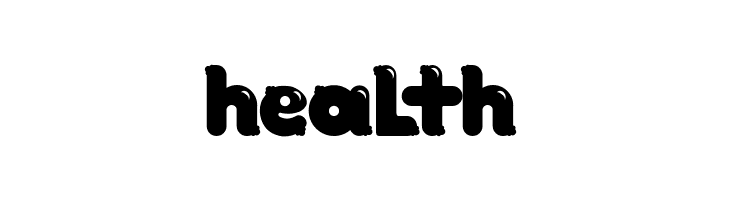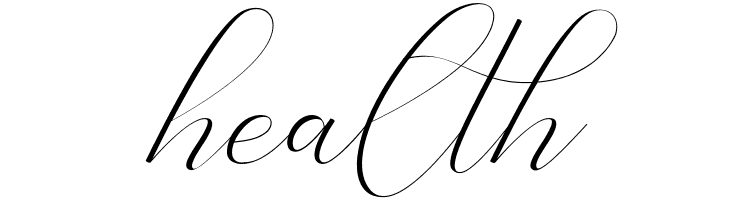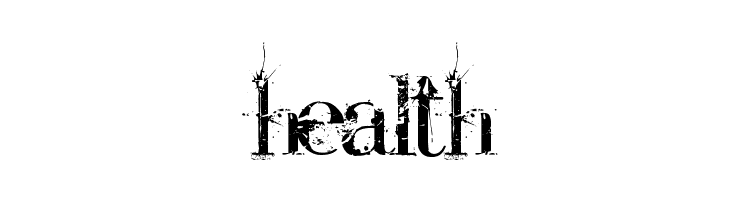
A tall, narrow font with a modern and sleek design.
A whimsical, nautical-themed font with playful, hand-drawn characters.
A bold, distressed font with a grunge effect and geometric structure.
A bold, distressed font with a grunge, industrial style.
A bold, outlined font with a modern and playful aesthetic.
A modern, rounded font with a playful and approachable style.
A playful, bold font with droplet-like decorative elements.
A playful, bold handwritten font with rounded, slanted letterforms.
A bold, pixelated Blackletter-inspired font with a modern edge.
A bold, decorative font with playful cutout designs and high contrast.
A bold, geometric font with a blocky, modern design.
A modern, geometric font with clean, rounded edges and consistent stroke widths.
A bold, textured, three-dimensional font with a playful, hand-drawn style.
A bold, textured font with a distressed, vintage appearance.
A bold, geometric font with clean lines and a modern, approachable style.
A jagged, edgy font with sharp, irregular characters ideal for dramatic themes.
A bold, geometric font with a futuristic and modern aesthetic.
A bold, distressed font with a rugged, vintage appearance.